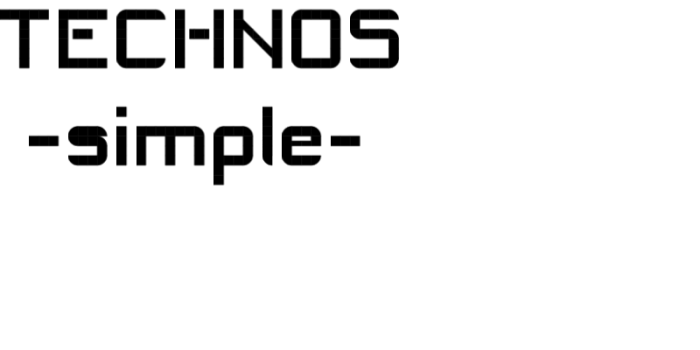
Technos Simple is now out and complete! Can't wait to see what people do with this :)
The top and mddle of s are connected... kinda confusing with g...